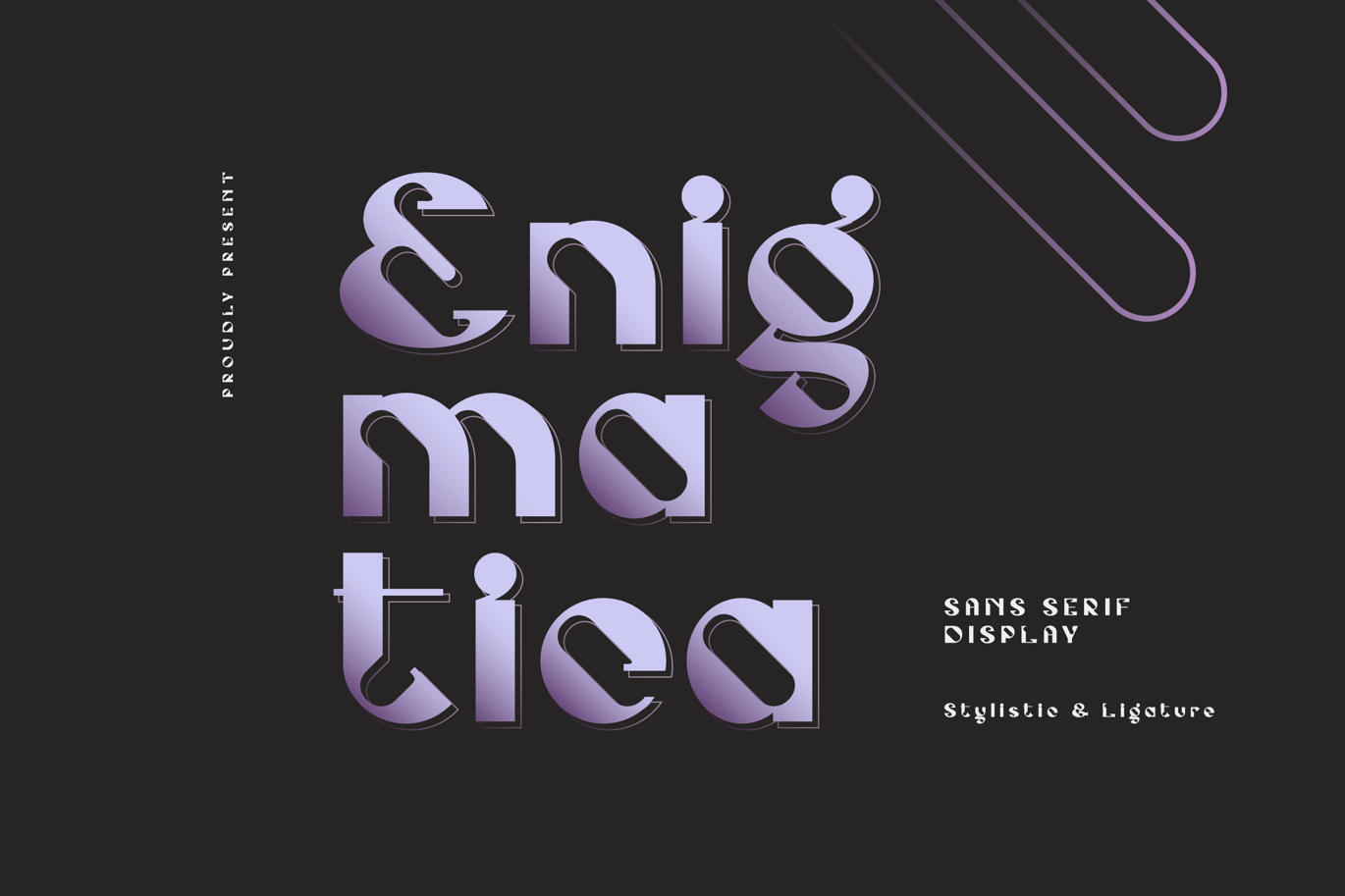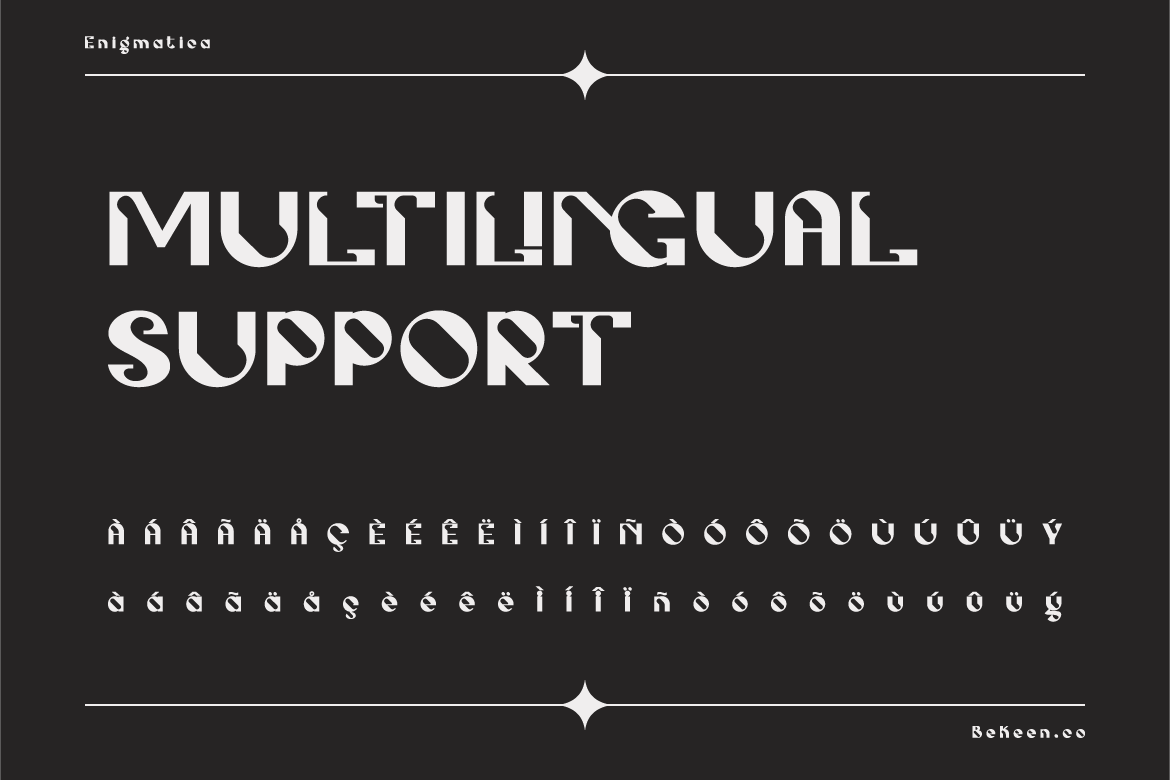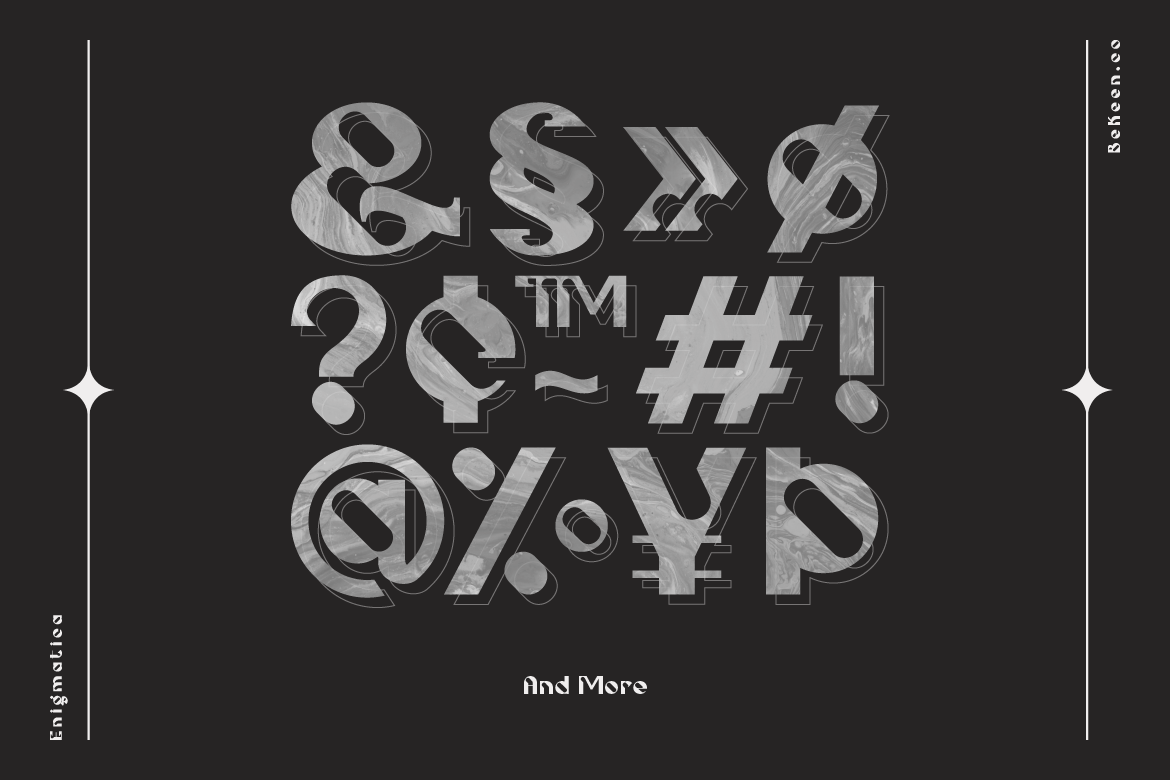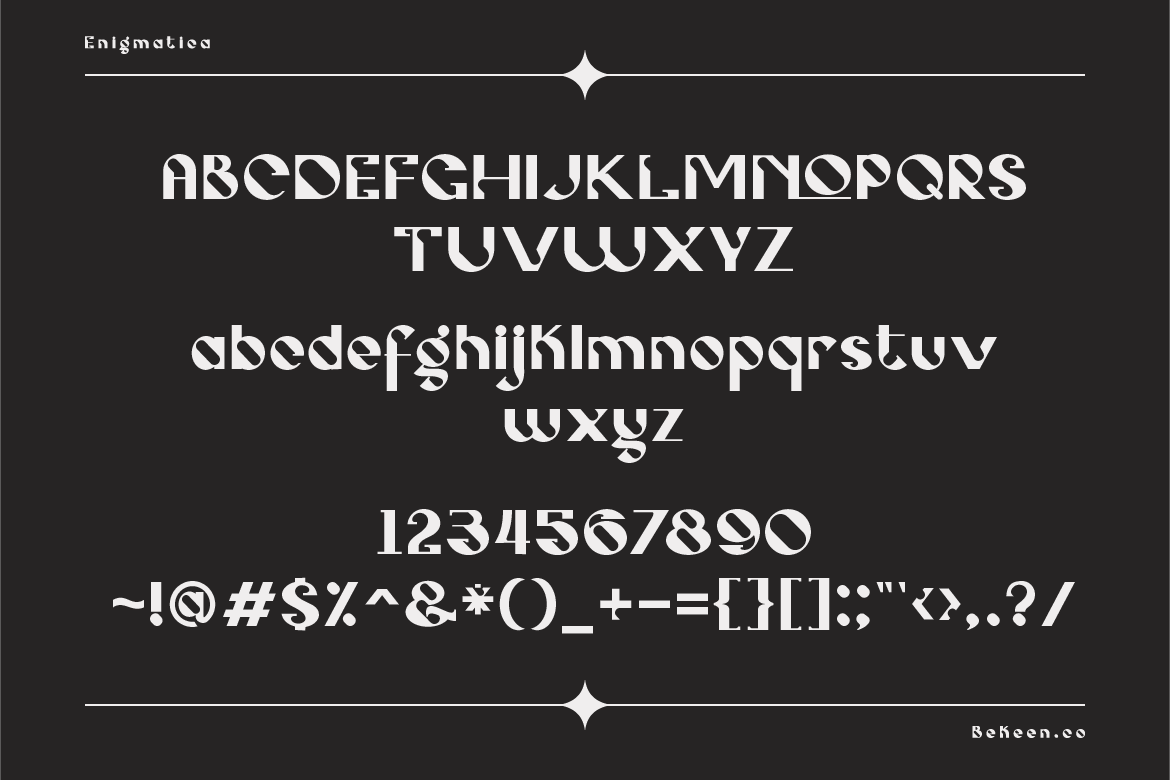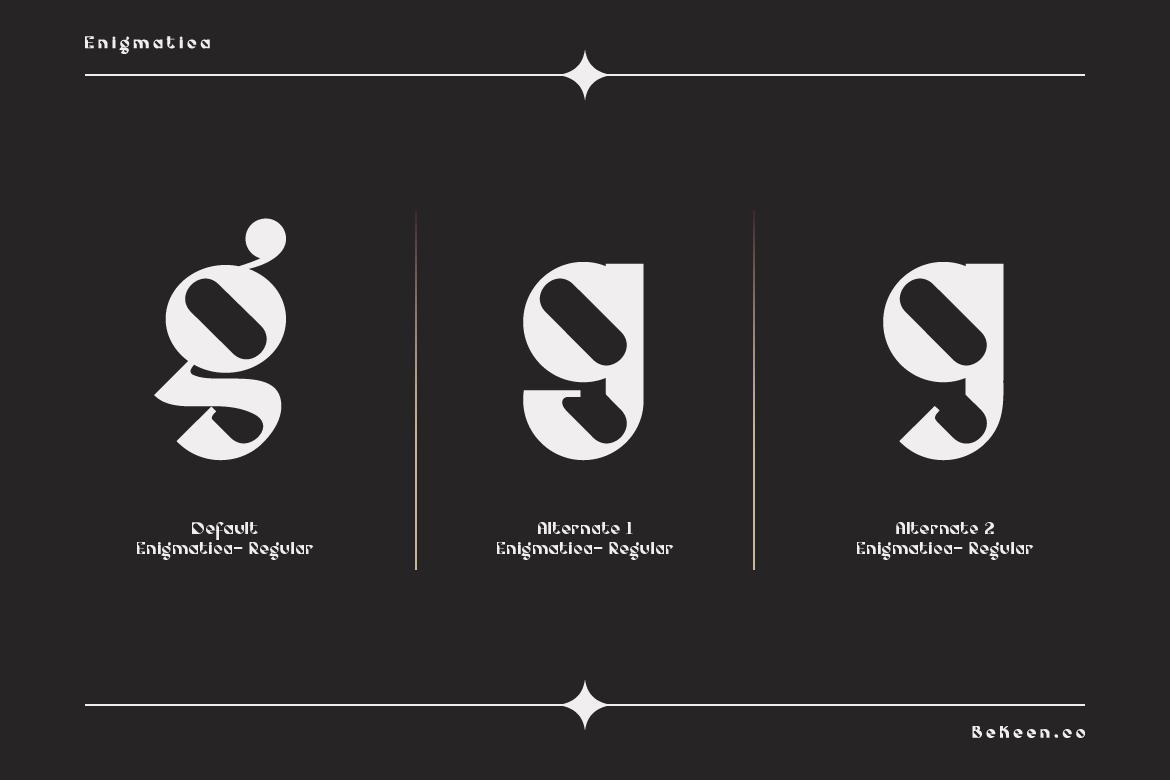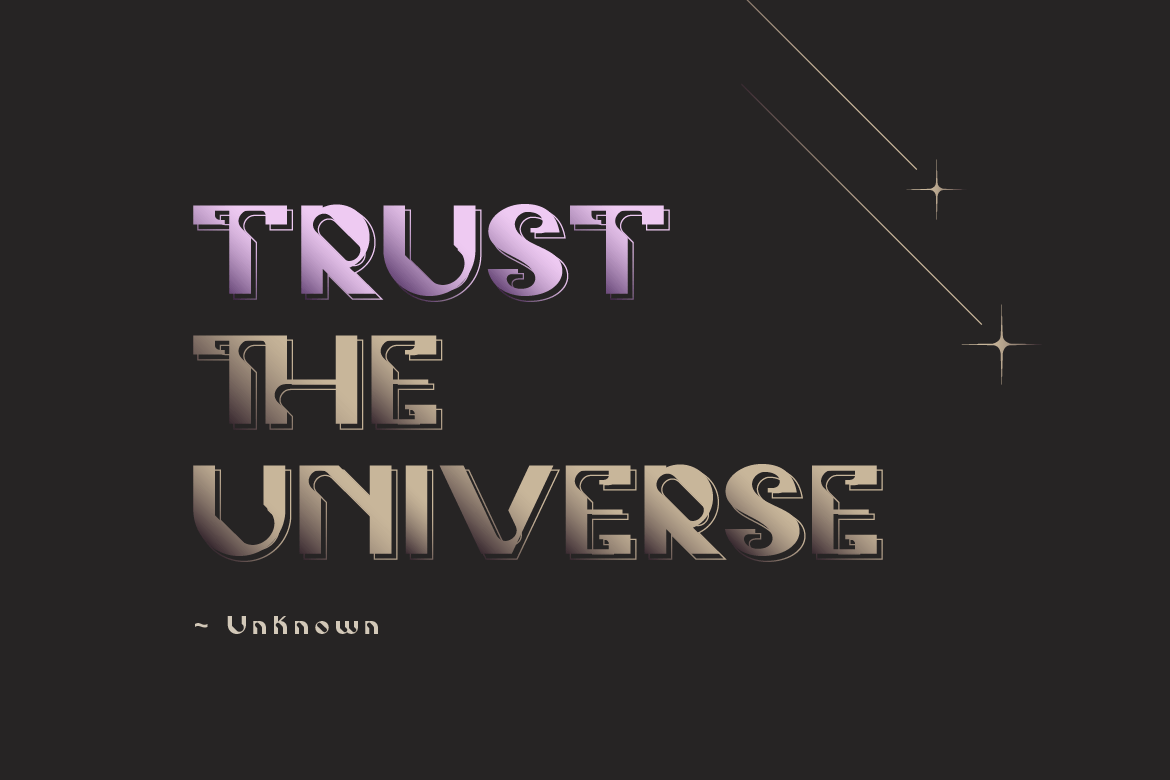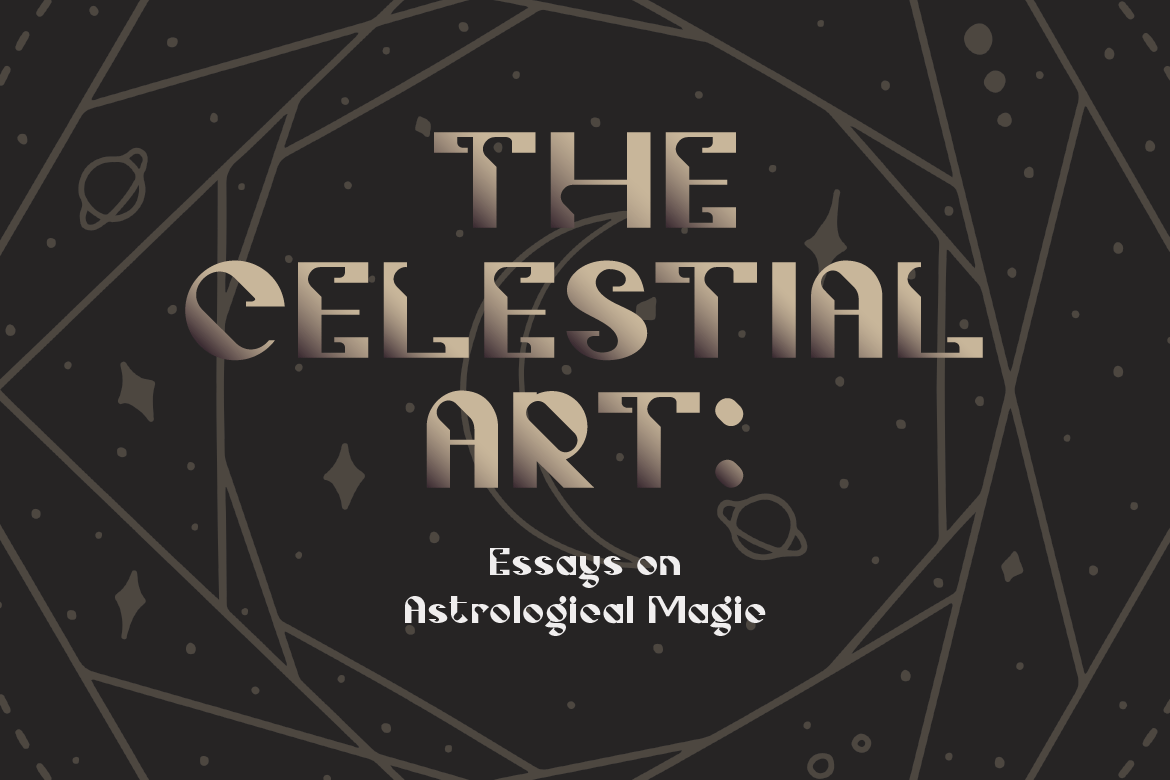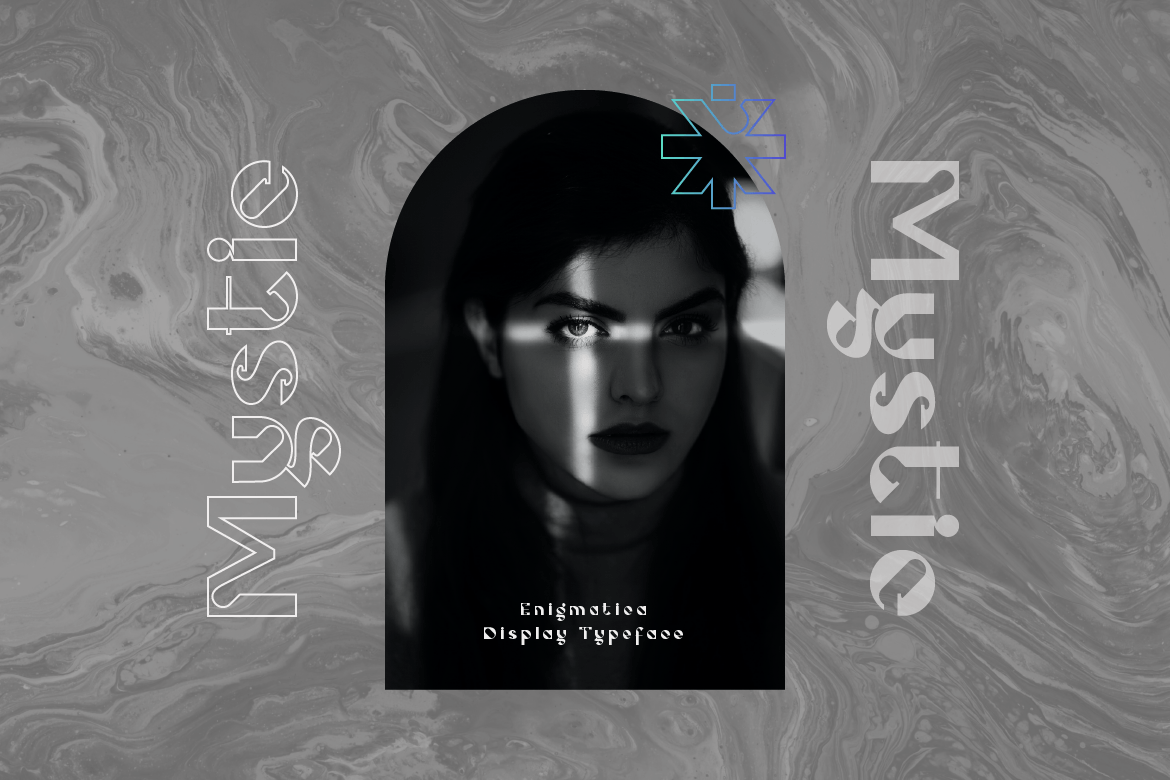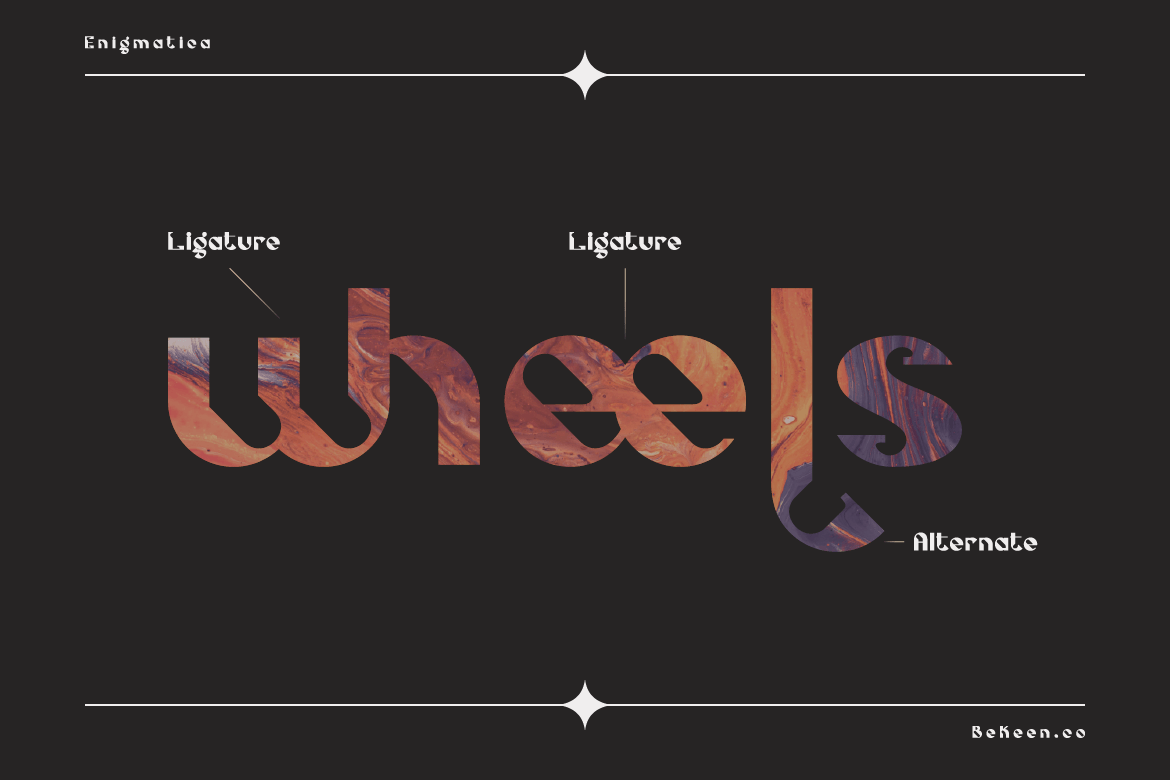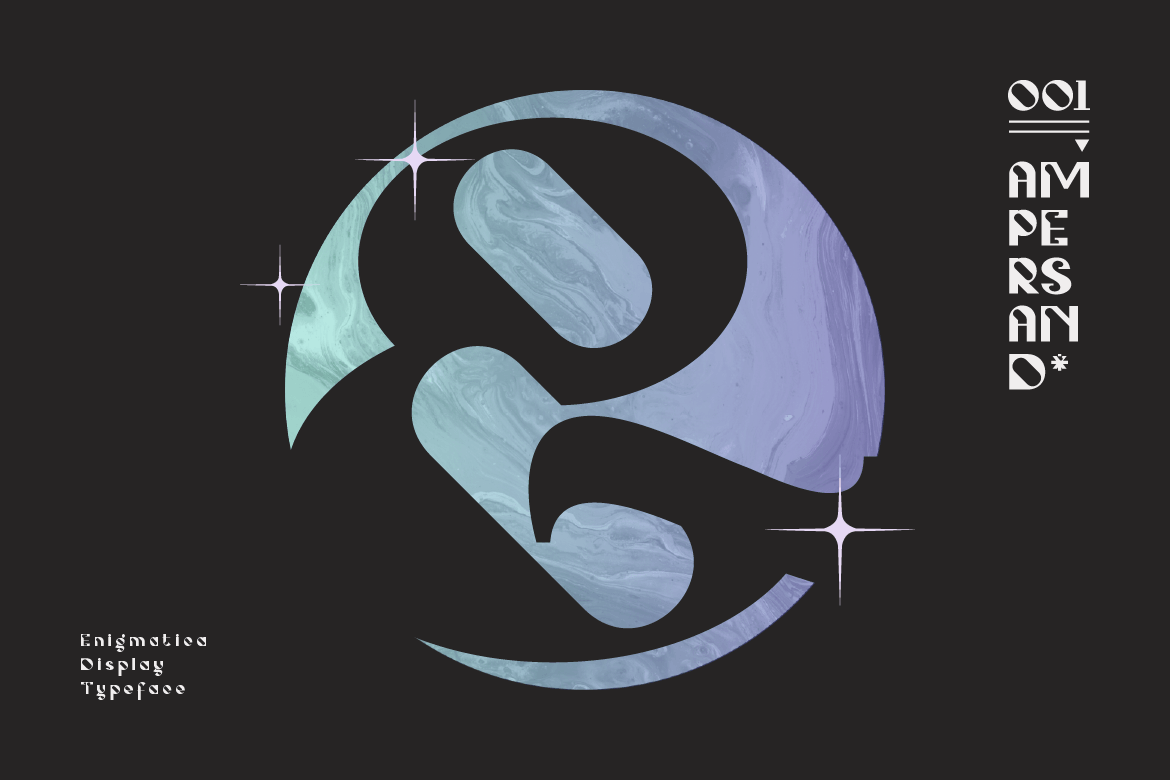
Retro Futuristic Font
Enigmatica is a display typeface with a retro-futuristic theme. Enigmatica has a distinctive diagonal counter that makes it unique. It comes with some alternates and ligatures. Enigmatica is a good visual complementary for posters, advertisements, labels, and more.